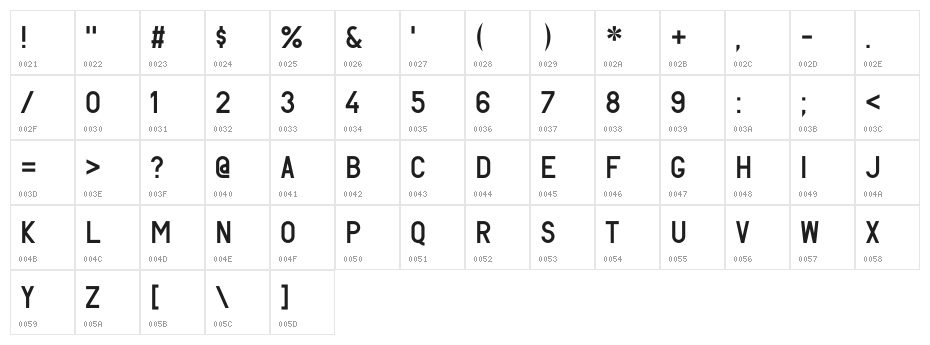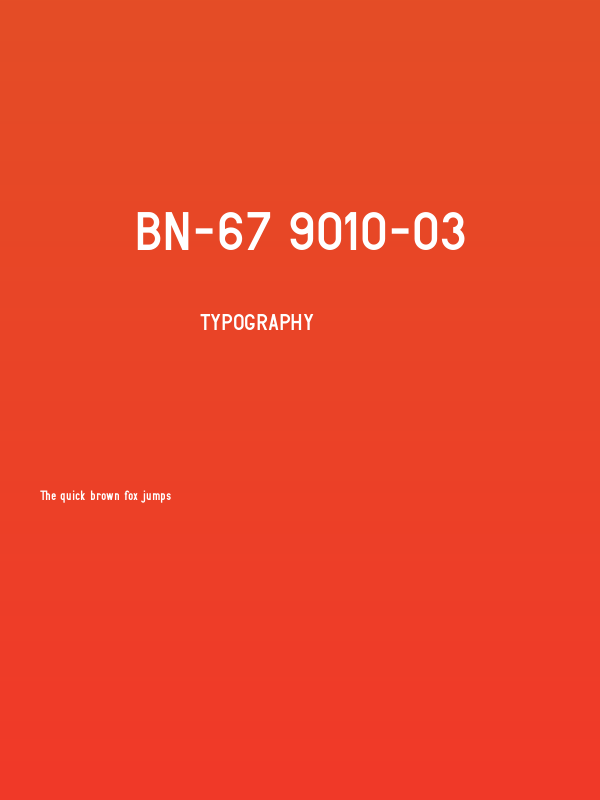
BN-67 9010-03 Font
BN-67 9010-03 Description
This font features a bold and modern sans-serif style, characterized by clean lines and a geometric structure. The uppercase letters are uniform in height, with a slight variation in width, giving it a balanced appearance. The lowercase letters maintain a consistent x-height, enhancing readability. The numerals are proportional, aligning well with the overall design. Special characters are distinct and well-integrated, ensuring versatility in various applications. The font's simplicity and clarity make it suitable for both digital and print media, offering a contemporary aesthetic that is both functional and visually appealing.